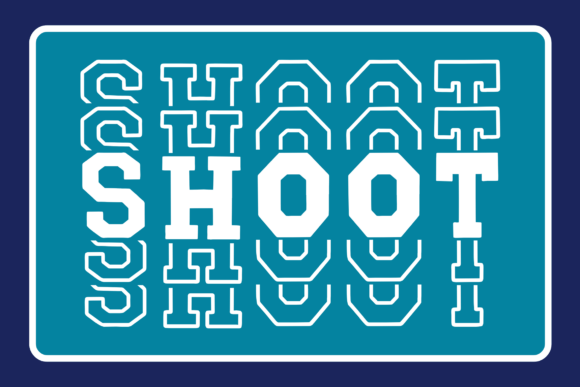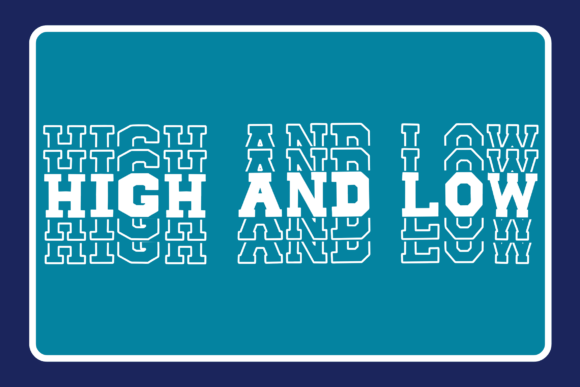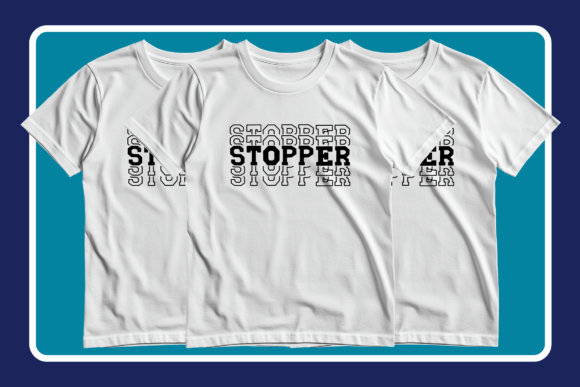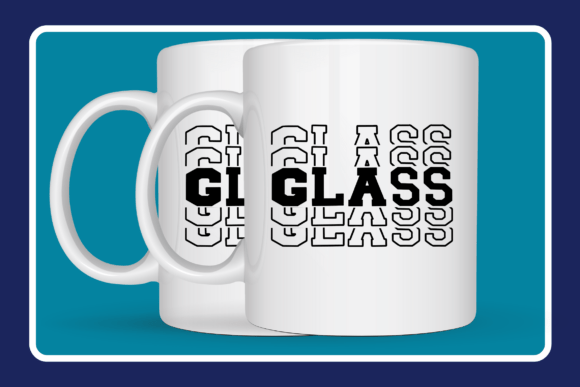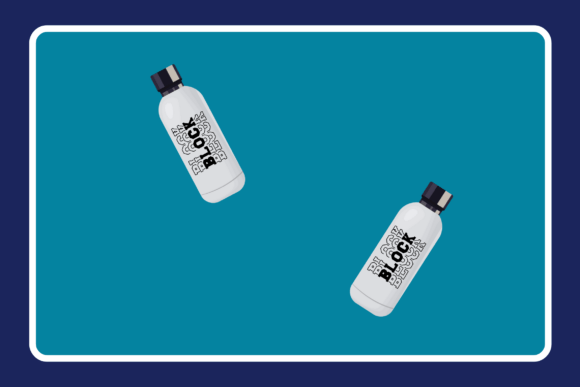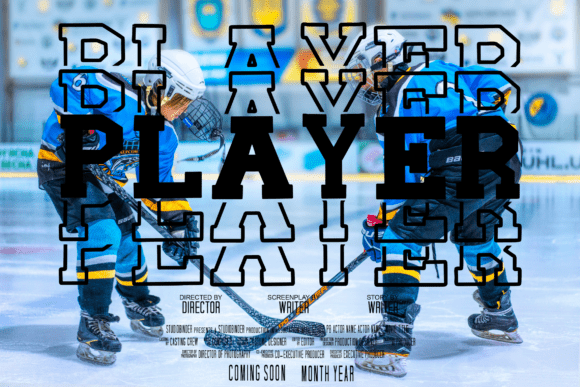
Introducing Blocksmith Stacked Font: Elevate Your Designs with a Bold, Varsity Edge
Are you looking for a font that can add a powerful punch to your designs? Do you want to create eye-catching sports graphics, team logos, posters, or merchandise that stands out from the crowd? Look no further than the Blocksmith Stacked font. This bold, layered font takes the classic look of varsity block letters and amplifies it with a dimensional design that’s sure to make your designs pop.
The Power of Blocksmith Stacked
Blocksmith Stacked takes the bold look of varsity block letters and builds them into a layered, stacked style for maximum impact. This font is perfect for designers and crafters who want to add a classic yet modern touch to their work. With its powerful presence and dimensional design, Blocksmith Stacked is ideal for a wide range of applications, from sports graphics and team logos to posters and standout merchandise.
One of the best things about Blocksmith Stacked is its versatility. This font can be used in a variety of ways to achieve different effects. You can use it solid for a bold, in-your-face look, or stack it with outlines for added depth and dimension. You can also layer it with colors to create a truly unique and eye-catching design. The possibilities are endless with Blocksmith Stacked.
Perfect for Sports Graphics and Team Logos
Sports graphics and team logos require a font that’s bold, dynamic, and attention-grabbing. Blocksmith Stacked fits the bill perfectly. Its layered, stacked design gives your designs a classic varsity look that’s sure to appeal to sports fans and teams alike. Whether you’re designing a logo for a school team, a sports brand, or a recreational league, Blocksmith Stacked is the perfect choice.
Stand Out with Posters and Merchandise
Posters and merchandise are a great way to showcase your designs and reach a wider audience. With Blocksmith Stacked, you can create eye-catching posters and merchandise that stands out from the crowd. From bold, colorful posters to stylish apparel and accessories, Blocksmith Stacked gives you the tools you need to create designs that pop.
Tips for Using Blocksmith Stacked
Here are a few tips for using Blocksmith Stacked to get the most out of this powerful font:
- Experiment with different colors and layering techniques to create unique and eye-catching designs.
- Use Blocksmith Stacked in combination with other fonts to add contrast and visual interest to your designs.
- Don’t be afraid to get creative and try new things – Blocksmith Stacked is a versatile font that can be used in a wide range of applications.
In conclusion, Blocksmith Stacked is a powerful, versatile font that’s perfect for designers and crafters who want to add a bold, varsity edge to their work. With its layered, stacked design and dimensional look, Blocksmith Stacked is ideal for sports graphics, team logos, posters, and standout merchandise. Whether you’re a seasoned designer or just starting out, Blocksmith Stacked is a great addition to your font library.